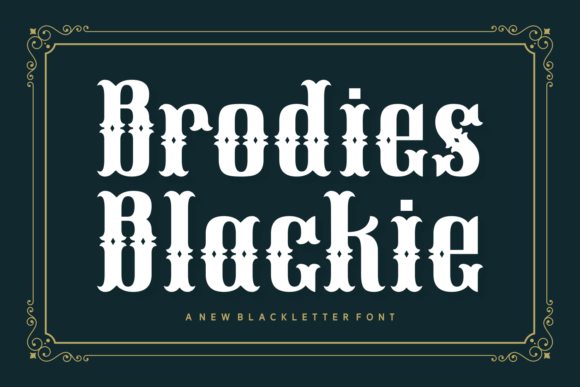
I still remember the frustration of working on a project, pouring my heart and soul into every detail, only to hit a roadblock: finding the right font. My client wanted a vintage-inspired logo with a touch of drama and elegance. I scoured the internet, tried countless fonts, but nothing seemed quite right. That was until I stumbled upon Brodies Blackie, a bold blackletter font that instantly captured the essence of what I was looking for.
First Impressions: A Bold and Beautiful Font
Brodies Blackie is a stunning blackletter font that boasts striking, ornate details and sharp, angular strokes. Its unique blend of traditional medieval aesthetics with modern flair makes it perfect for a variety of design projects, from vintage-inspired logos and tattoos to gothic-themed designs and more.
• ✨ Unique and distinctive design: Brodies Blackie stands out from the crowd with its bold, ornate details and sharp strokes.
• ✅ Highly legible: Despite its ornate nature, this font is surprisingly easy to read, making it perfect for body text and headlines.
• 💥 Versatile: Whether you’re working on a vintage-inspired design, a gothic-themed project, or a modern logo, Brodies Blackie adapts effortlessly.
While Brodies Blackie is an exceptional font, there are a few minor quirks to be aware of:
• 🤔 Limited use in very small sizes: Due to its ornate nature, Brodies Blackie may not be the best choice for very small font sizes, as some details may become lost.
• ⚠️ Kerning issues: As with any font, some users may experience kerning issues, particularly when using certain character combinations.
If you’re looking for similar fonts or alternatives to Brodies Blackie, consider the following options:
• Wilhelm Klingspor Gotisch: A classic blackletter font with a similar feel to Brodies Blackie, but with a more elegant and refined design.
• Chruchill: A bold, modern blackletter font with a similar sense of drama and flair.
• Undertaker: A gothic-inspired font with a similar blend of ornate details and sharp strokes.
• Fraktur: A traditional blackletter font with a similar sense of history and heritage.
Brodies Blackie was inspired by the traditional blackletter fonts of the Middle Ages, with a modern twist. Its designer sought to create a font that would blend the elegance and sophistication of medieval typography with the boldness and drama of modern design.
Q: What type of projects is Brodies Blackie best suited for?
A: Brodies Blackie is perfect for vintage-inspired designs, tattoos, logos, gothic-themed designs, and more.
Q: Is Brodies Blackie highly legible?
A: Yes, despite its ornate nature, Brodies Blackie is surprisingly easy to read, making it perfect for body text and headlines.
Q: Is Brodies Blackie available in different weights or styles?
A: While Brodies Blackie is primarily available as a single font, its unique design and OpenType features make it versatile enough to be used in a variety of contexts.